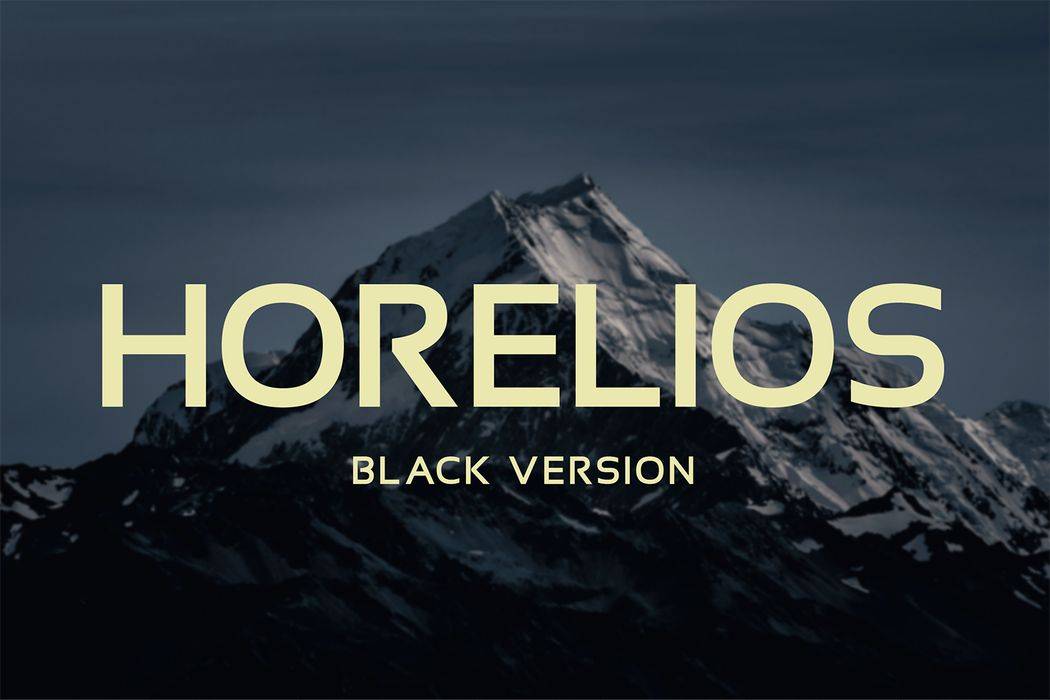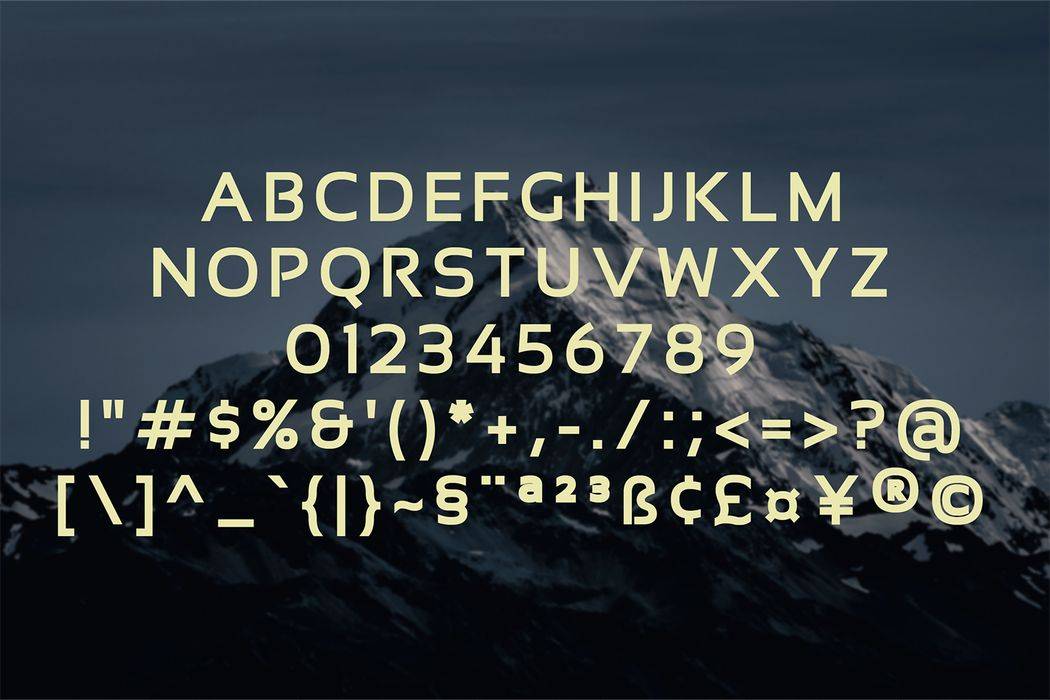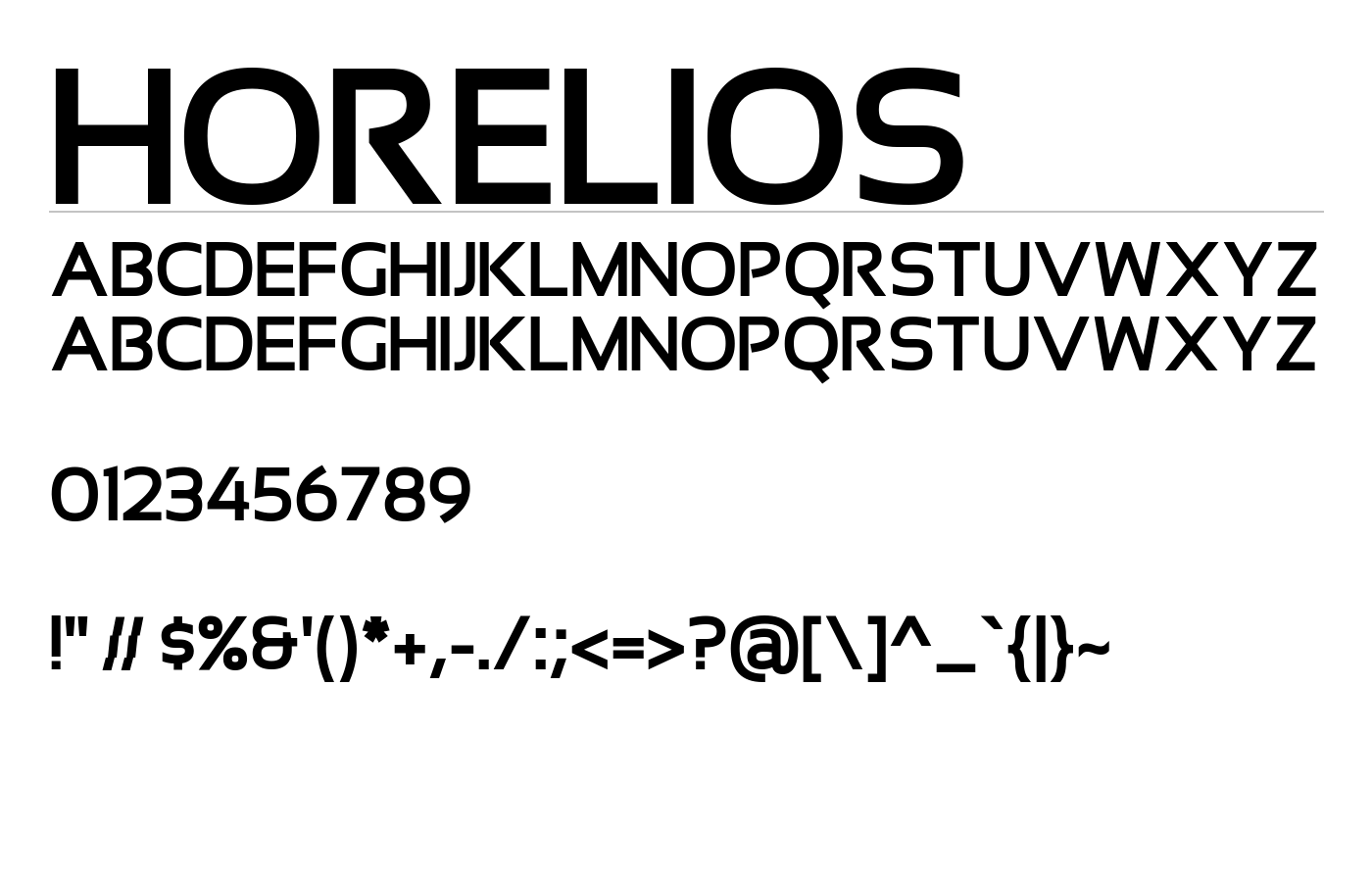
Horelios Black is a bold, modern sans serif font with clean, geometric shapes and a strong presence. Its high x-height and slightly condensed letterforms make it highly legible and impactful, ideal for headlines and branding where a contemporary, confident look is desired. This font works great for tech, corporate, and editorial designs seeking a sleek, professional style.
Horelios Black Font
About Horelios Black Font